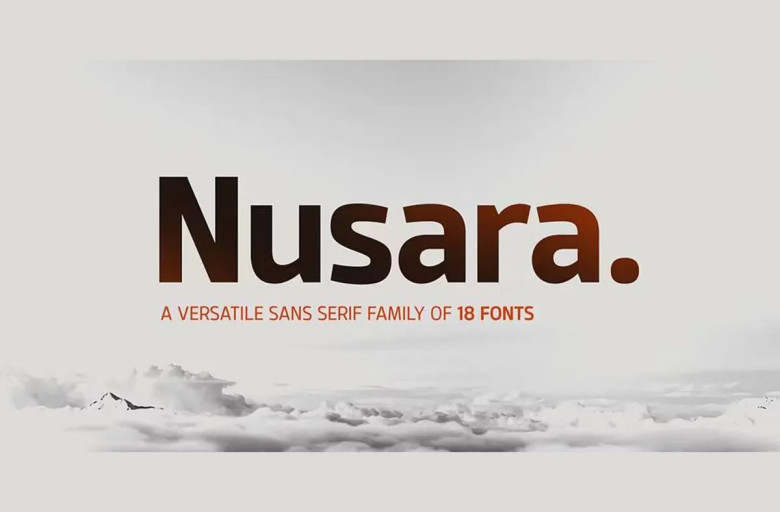
Nusara Font
Nusara is an eye-catching modern sans-serif font. It has quickly made waves in the design world, thanks to its classic typography with modern flare. Nusara can handle any project ranging from display material creation and text production alike.
Nusara’s layout is also straightforward for audiences to grasp, thanks to its clean lines and carefully designed characters, making your message easily understandable to target groups. Customization options range from Thin up to Black weight options.
Nusara font is an ideal solution for websites, brochures and social media posts alike. With its blend of contemporary style and classic typography roots, Nusara creates a bold impression in any design project – be sure to add this versatile font with nine weight options today to your design toolkit!
Nusara Sans Serif Font